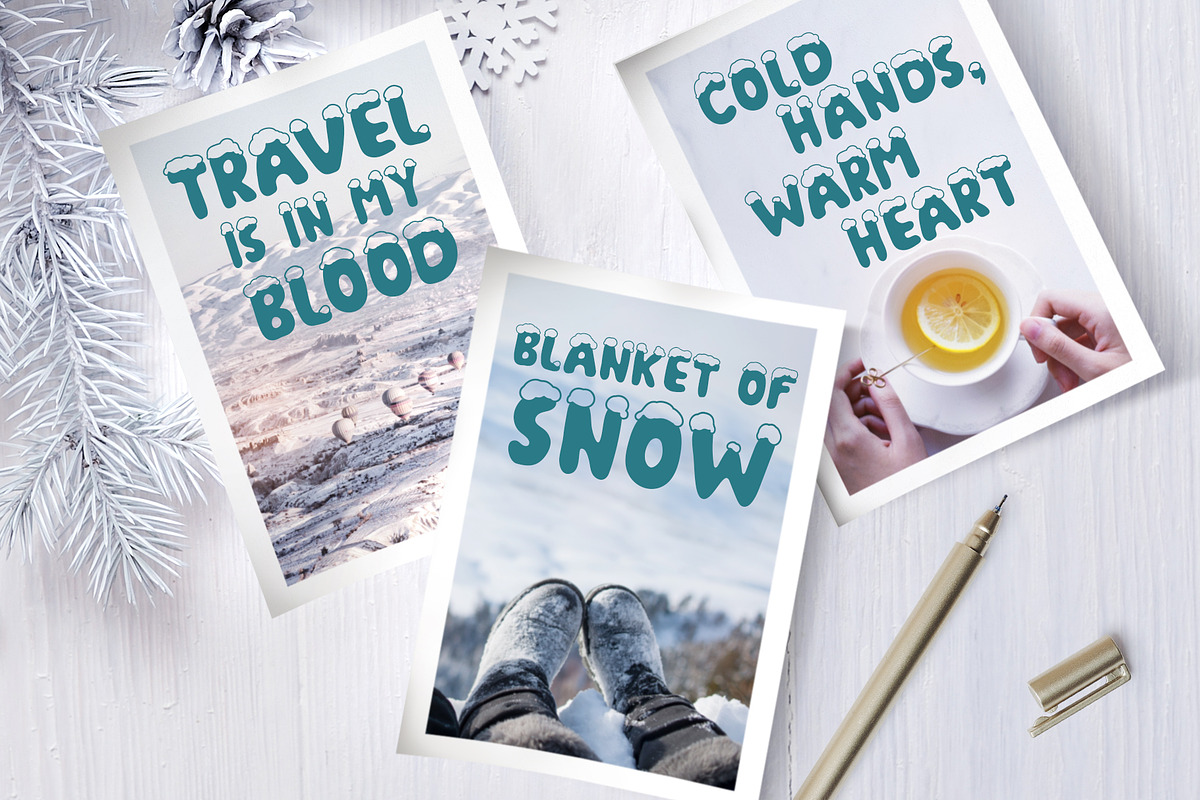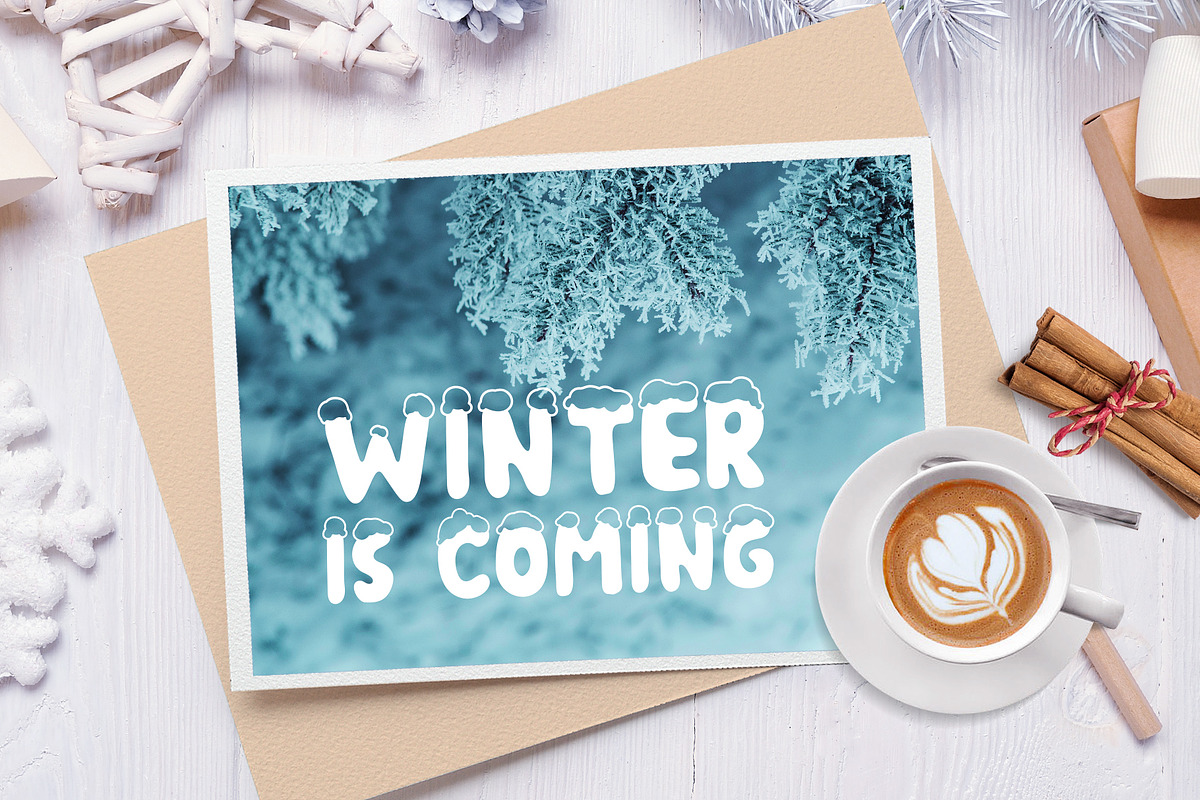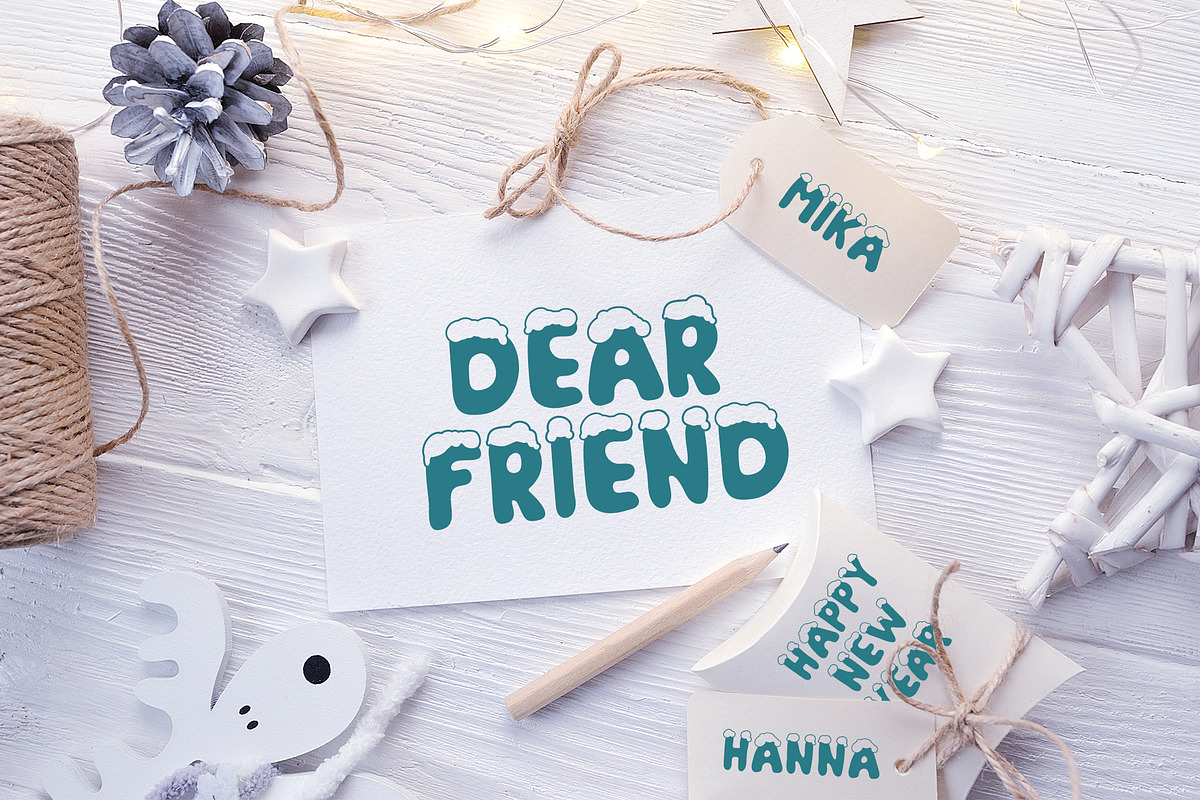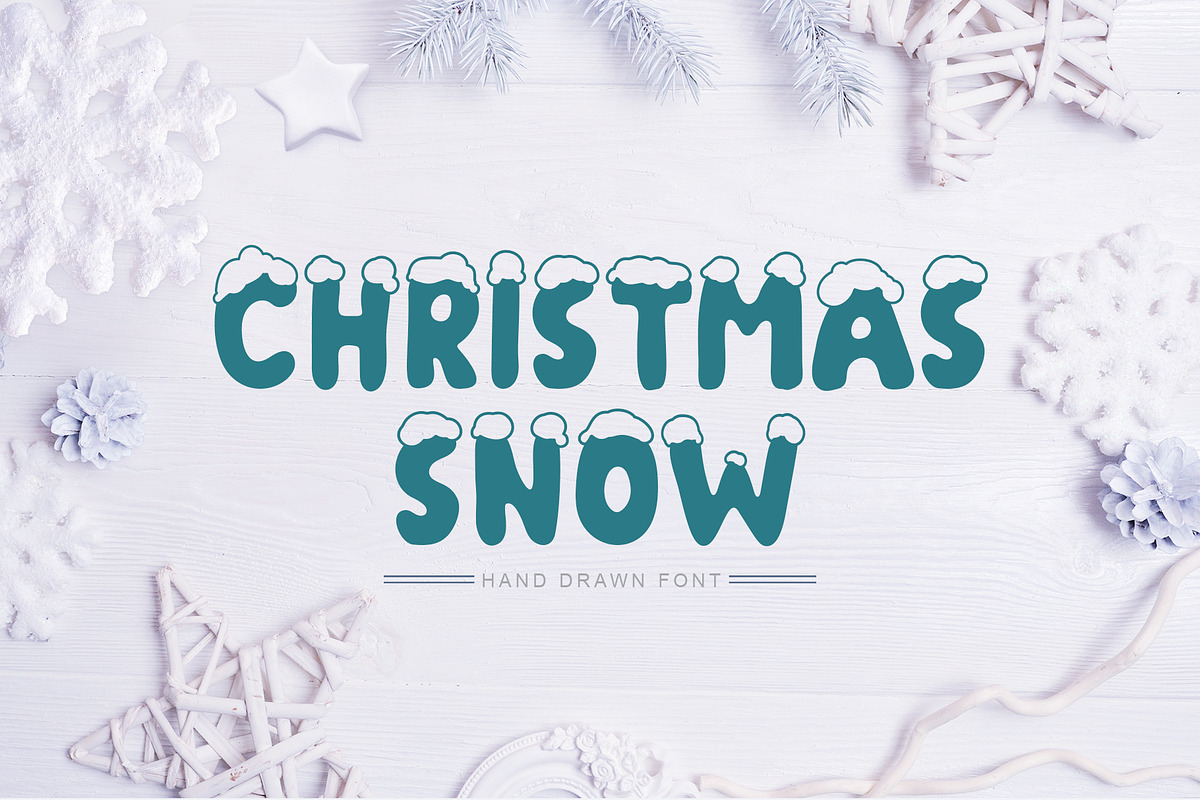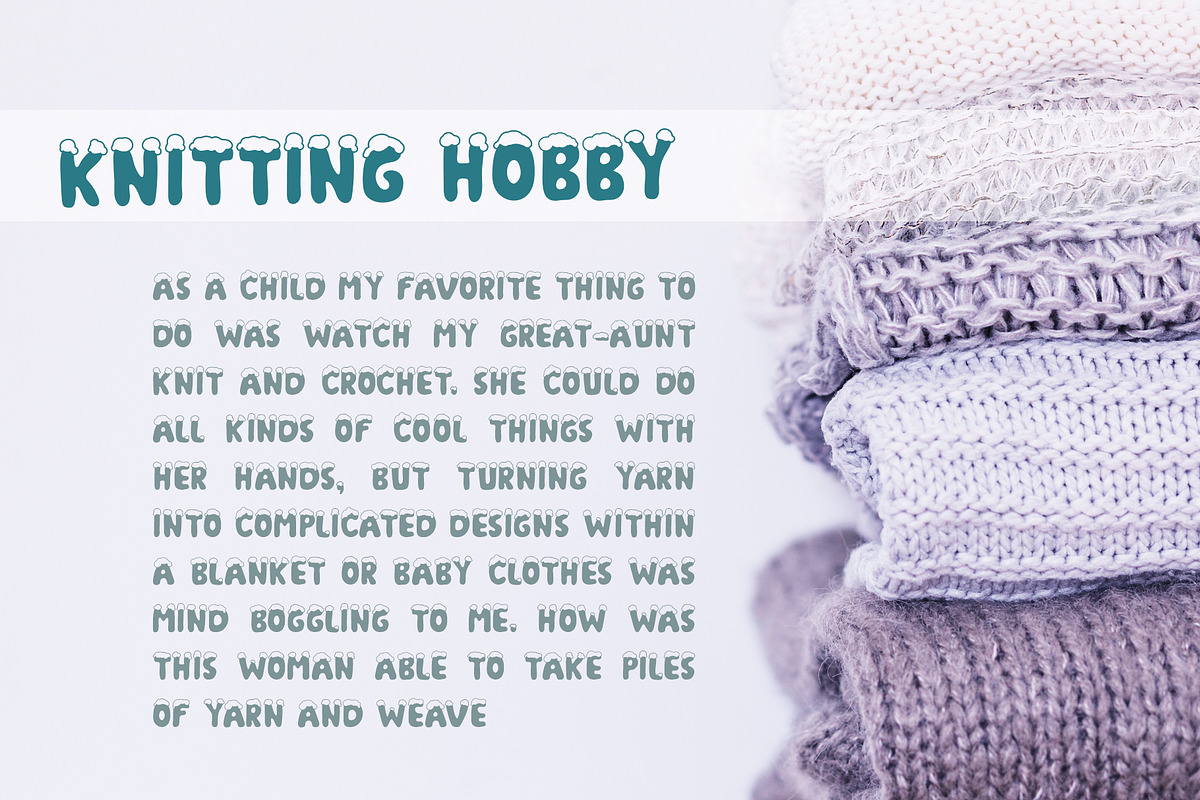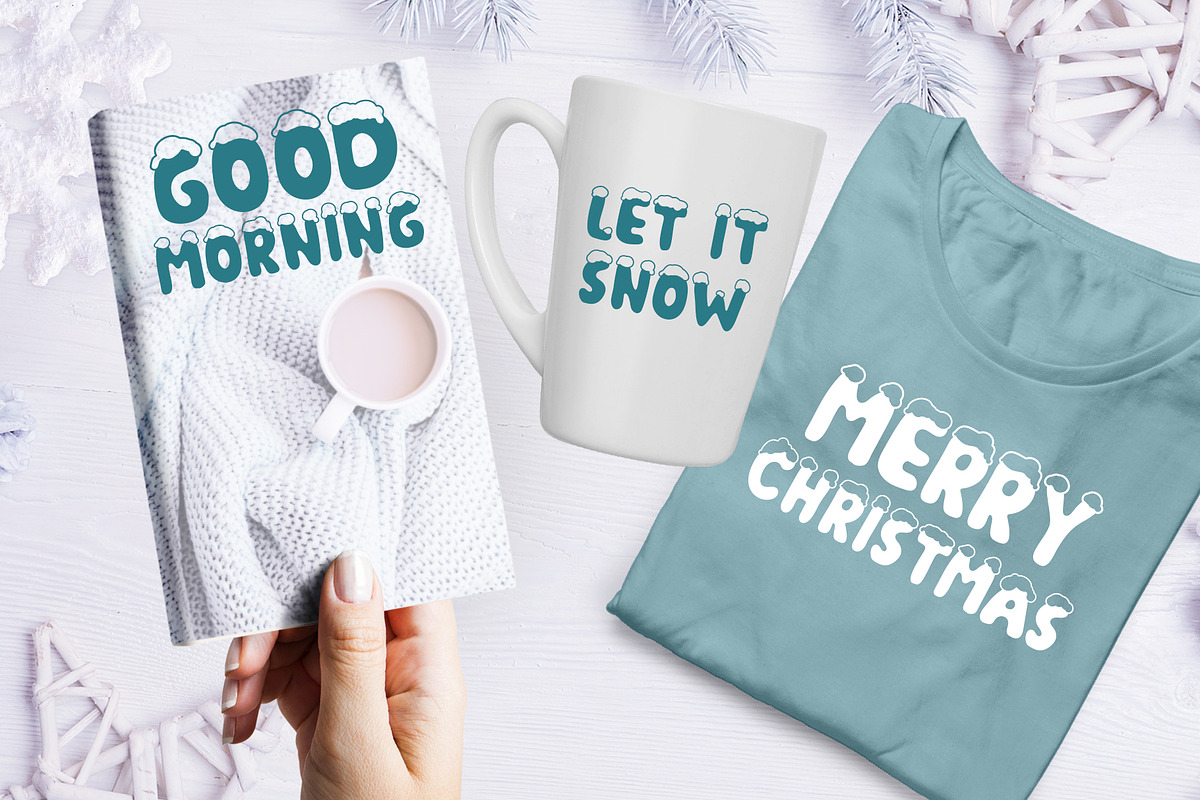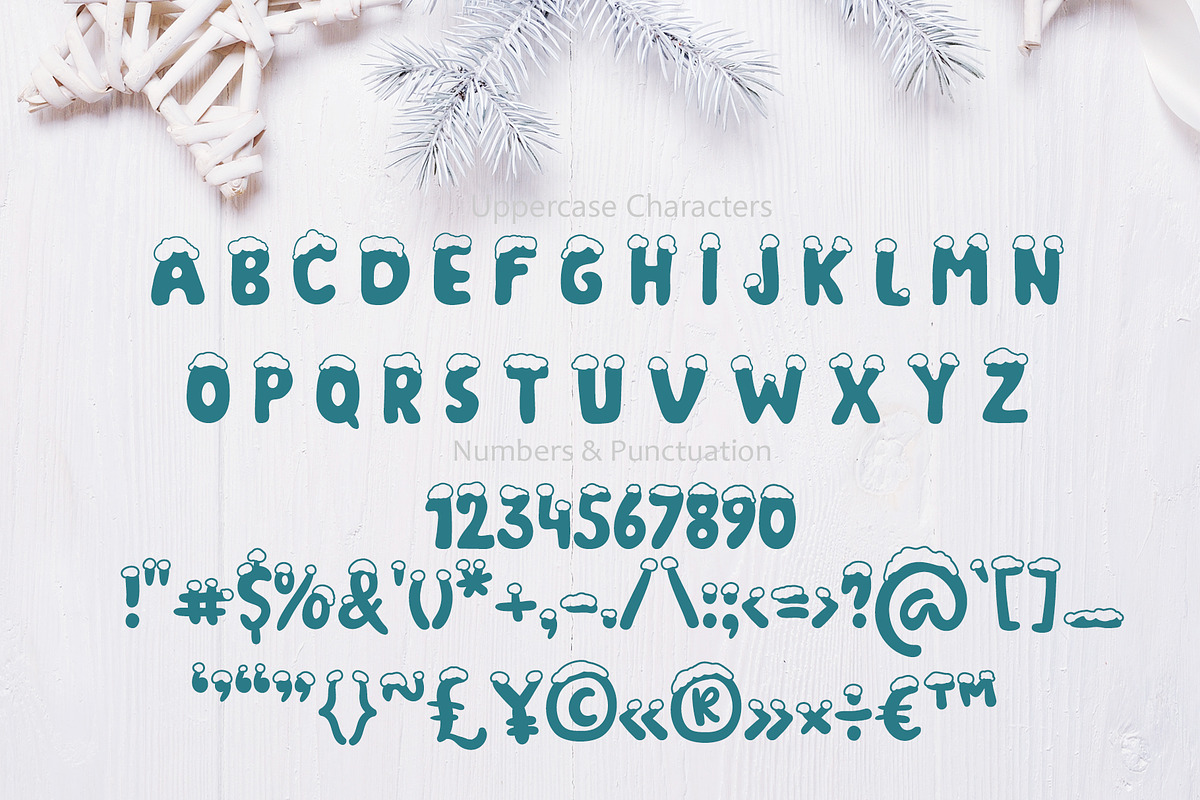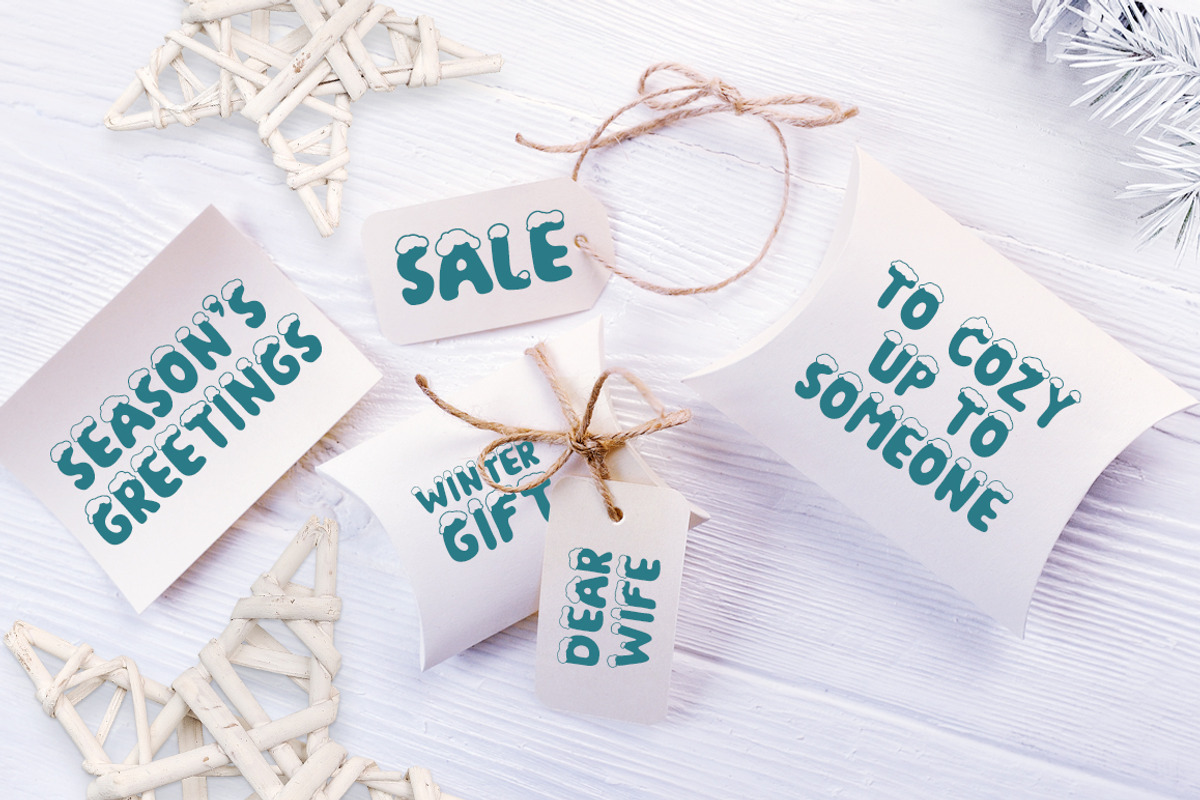
Christmas Snow Hand Drawn Font
Winter handmade Christmas Snow Hand Drawn Font is modern display font. Christmas Snow Hand Drawn Font is beautiful instrument for designers, blogers and everybody who loves doodle scandinavian or hygge style.
Titles for kid`s book, scrapbook, logo, icon, phrases or quotes for winter greeting cards (Christmas or New Year holidays), photo overlay, short phrases, children’s book, gift shops tag, presentation in social media Pinterest, Instagram, Facebook or other.
Why Christmas Snow Hand Drawn Font is worth a look
Christmas Snow Hand Drawn Font by Happy Letters fits naturally into Branding, posters, packaging, typography.